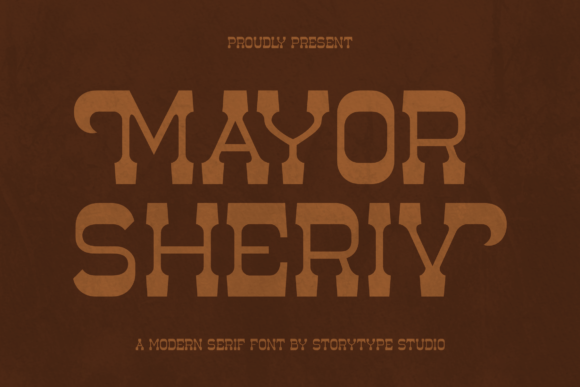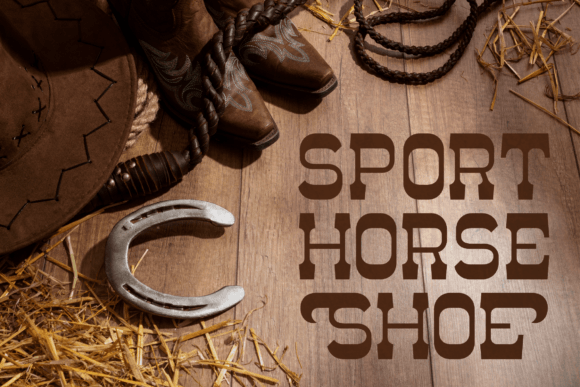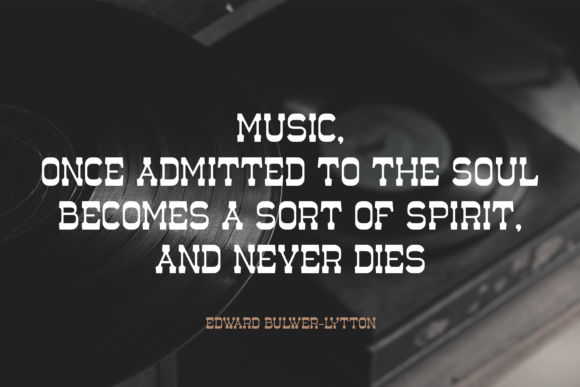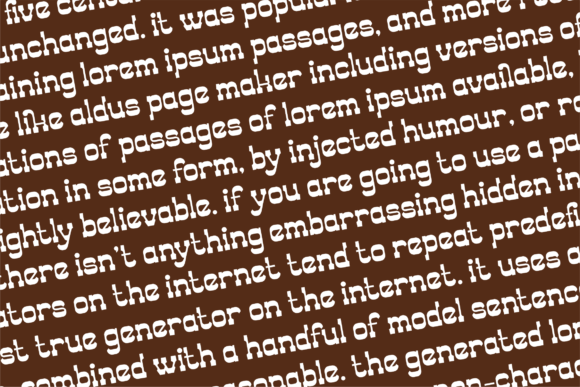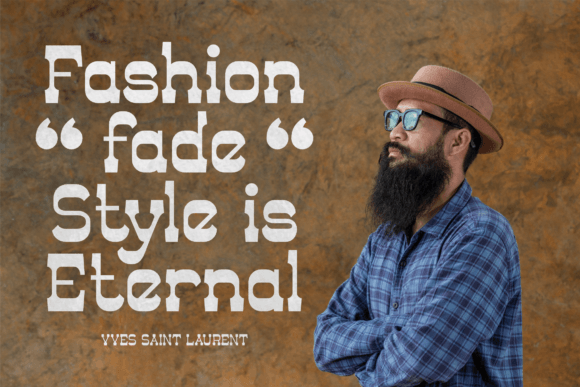
Mayor Sheriv Font
Mayor Sheriv is a modern and stylish serif font that has its own unique appearance. This typeface is perfect for an elegant and luxurious logo, fashion brands, magazines, apparel, lettering, quotes, and so much more.